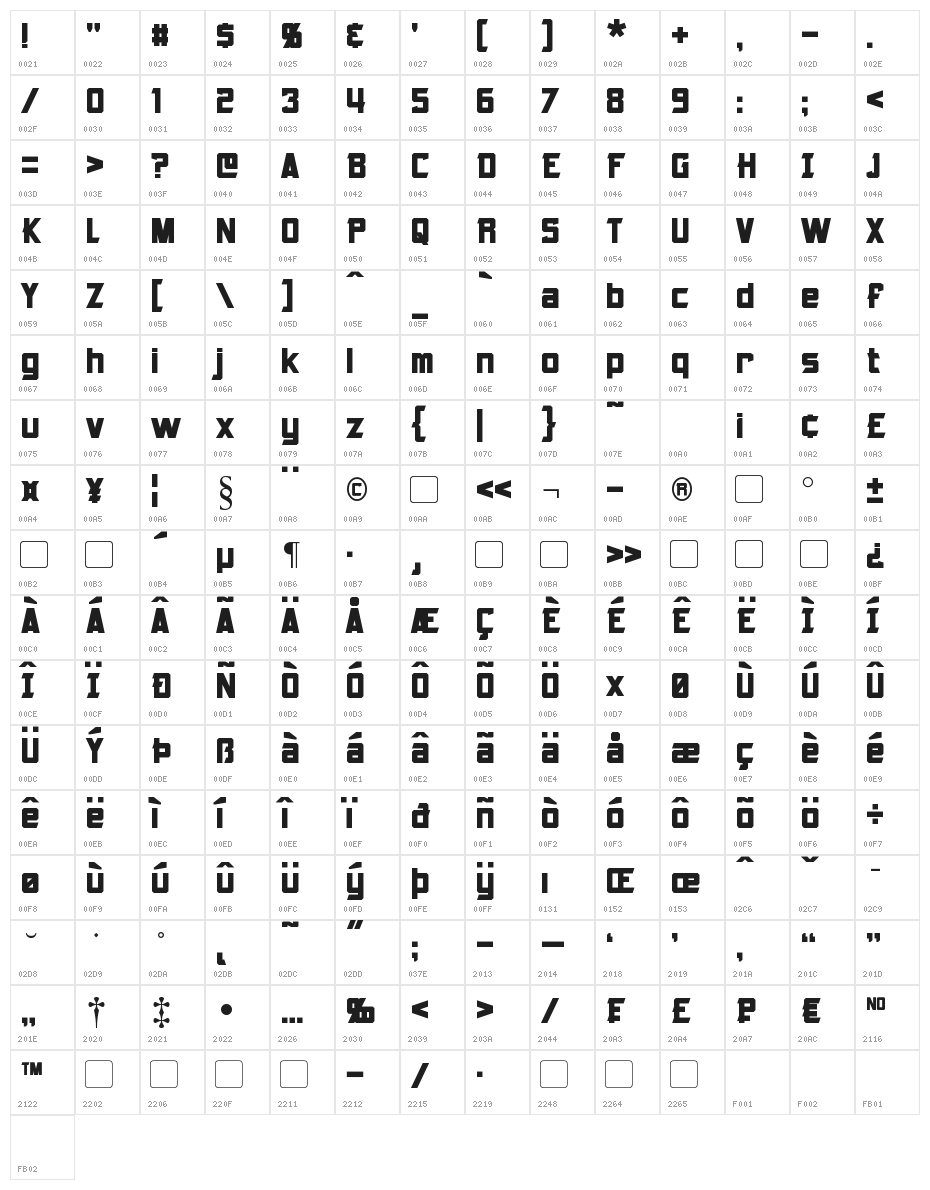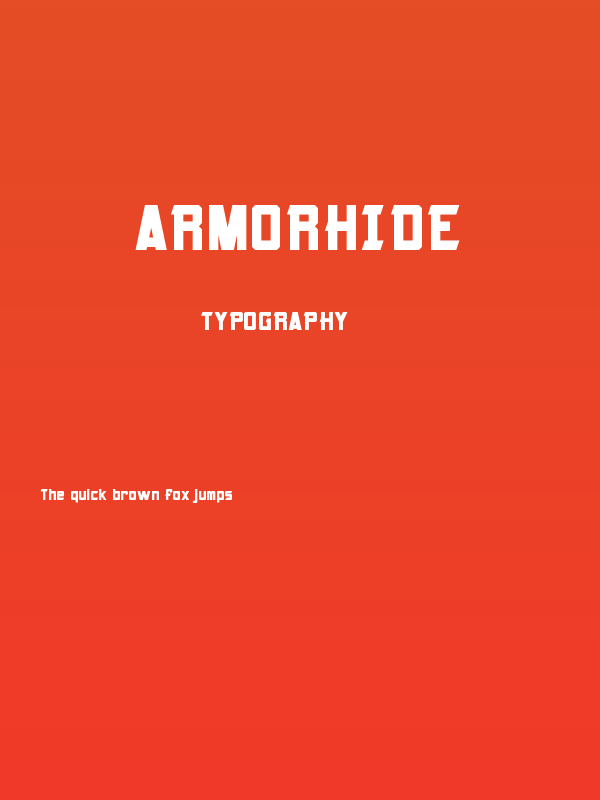
Armorhide Font
| Progetti proposti | Ideal for projects requiring a strong, impactful presence such as posters, logos, video game graphics, and branding for industrial or tech companies. |